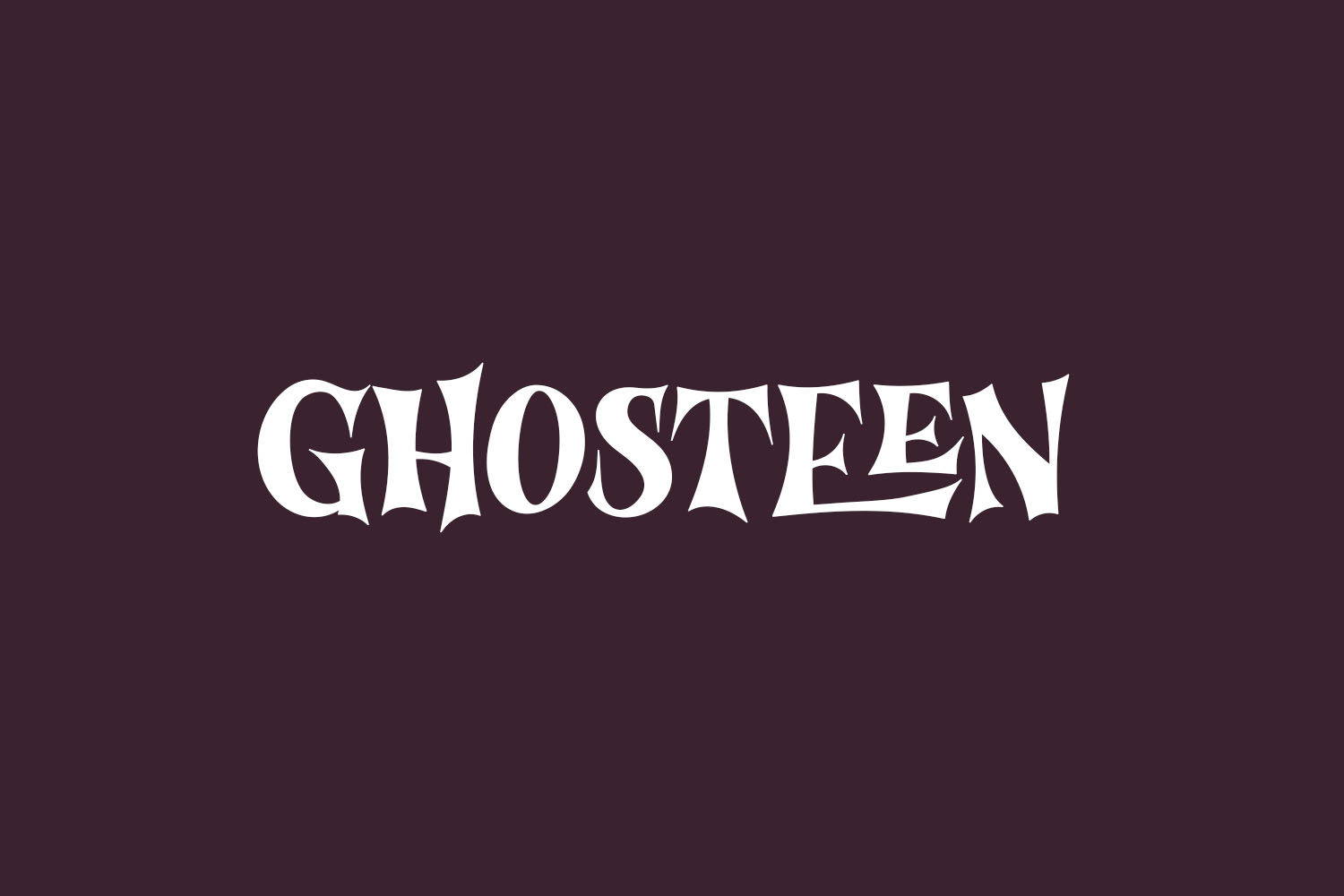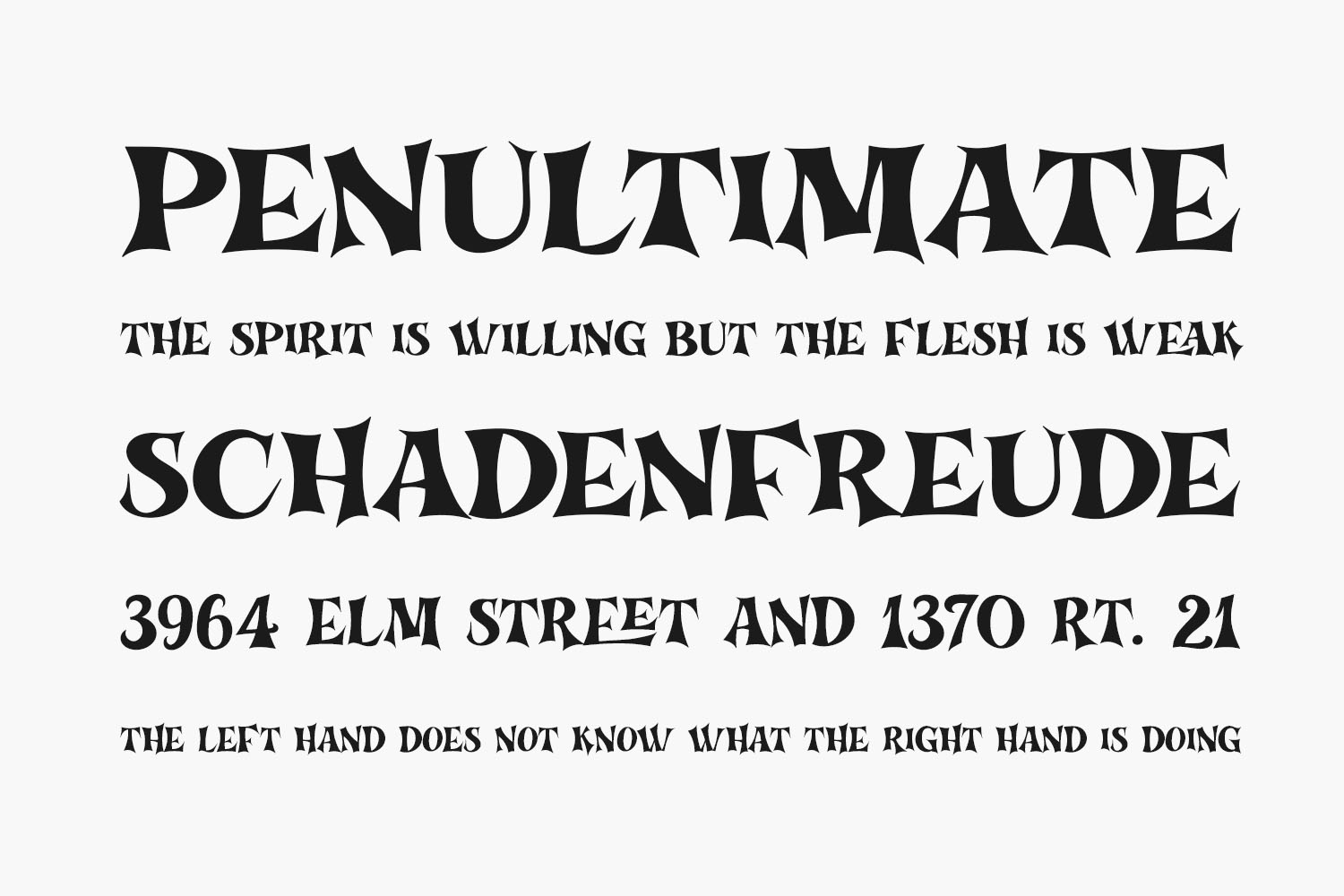
Ghosteen Free Font is a delightful all-caps serif font featuring larger uppercase characters compared to its lowercase counterparts, along with a collection of charming ligatures. This captivating and whimsical typeface is perfect for infusing a playful and eerie charm into your creative projects. Whether you’re designing for Halloween, crafting, t-shirt artwork, stickers, sublimation, or any other creative endeavor, Ghosteen is your ideal choice. Ghosteen Free Font is free for personal use only. Please purchase the full version for commercial use.
Designed by Airotype Studio